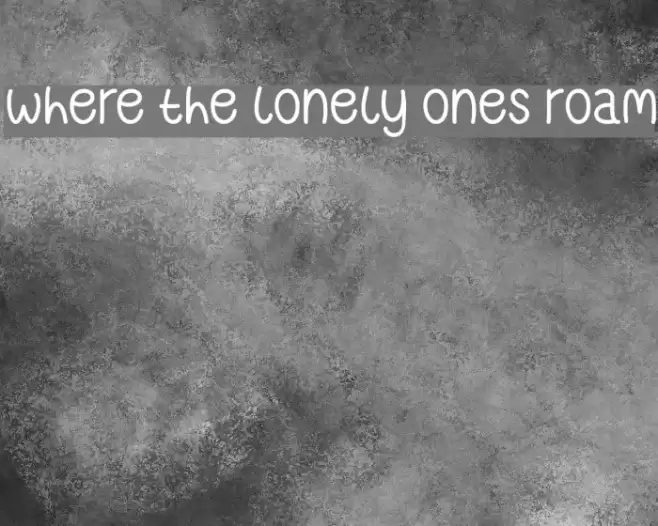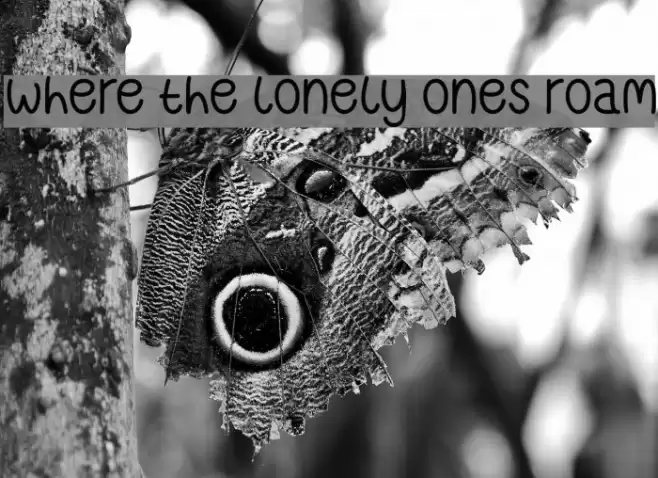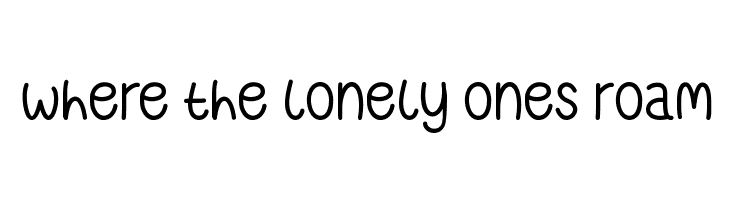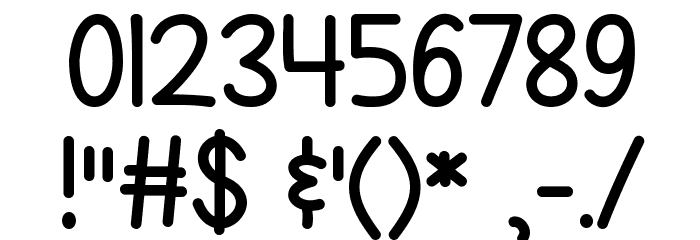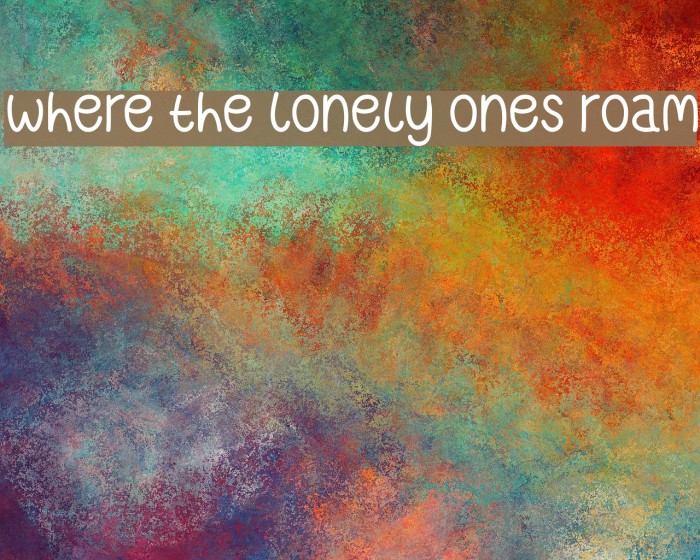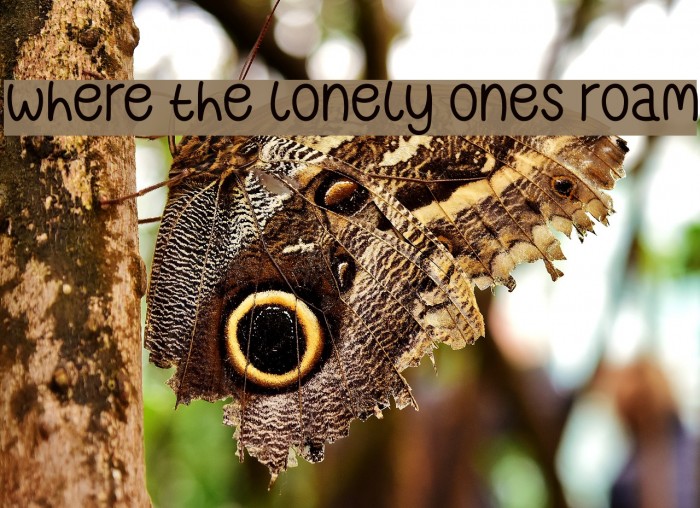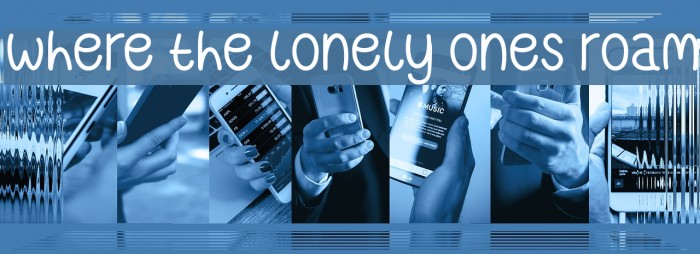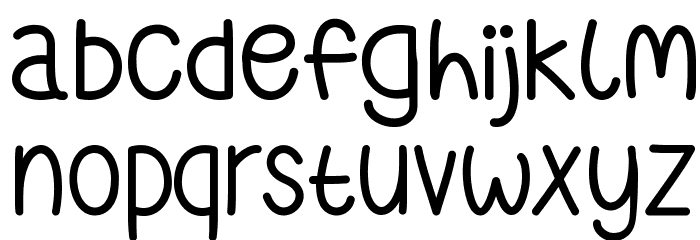
Where The Lonely Ones Roam Font
Where The Lonely Ones Roam Description
This font features a playful and rounded style, characterized by its smooth curves and friendly appearance. The letters are evenly spaced, with a consistent stroke width that gives it a clean and approachable look. The lowercase letters have a uniform height, while the uppercase letters maintain a balanced proportion, making it easy to read. The numerals and special characters follow the same design principles, ensuring a cohesive appearance across all characters. This font's simplicity and charm make it suitable for a variety of informal and creative projects.
A playful, rounded font with smooth curves and a friendly appearance from Handwritten fonts.
- Proposed Projects: Ideal for children's books, greeting cards, playful branding, and casual invitations.
- Overall Style: Playful
- Use Case: Headlines, Logos, Informal Text